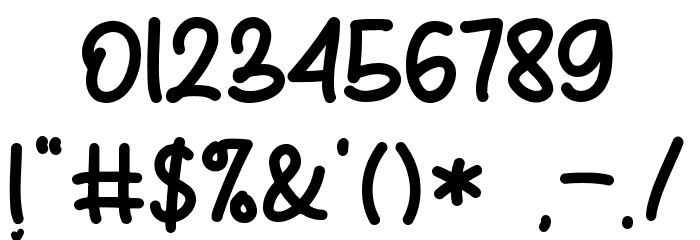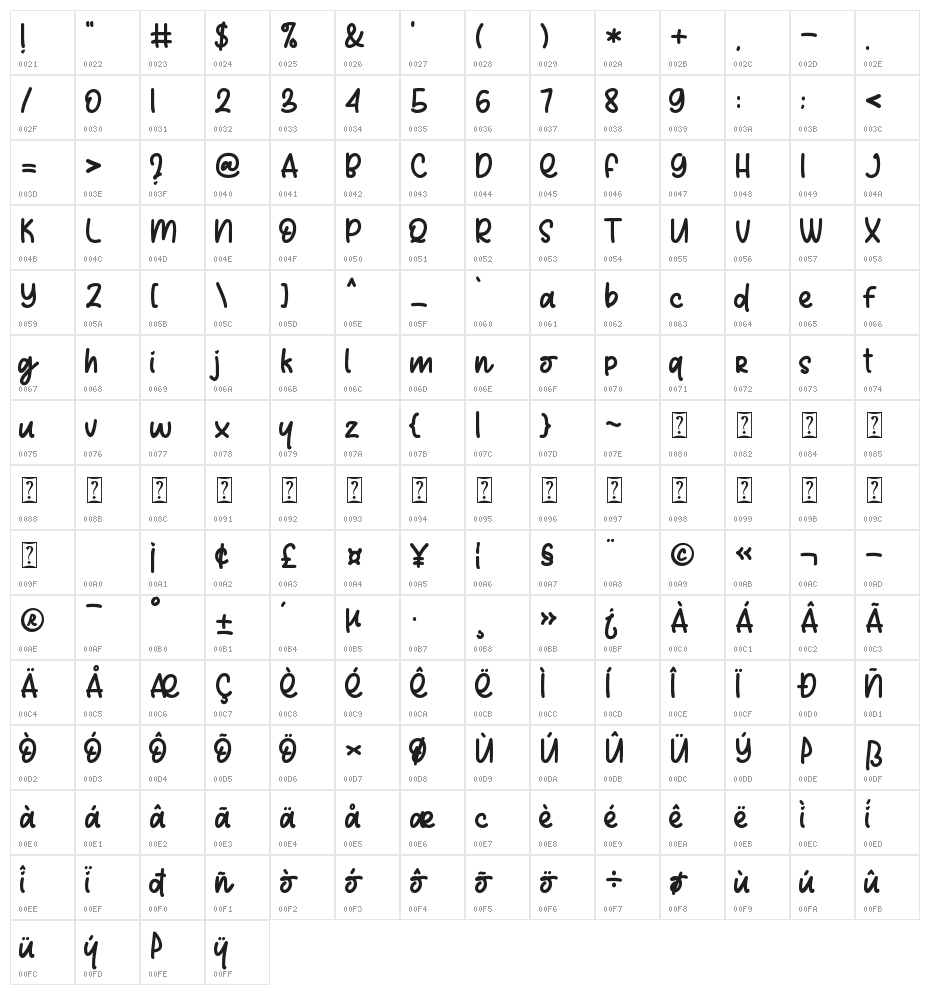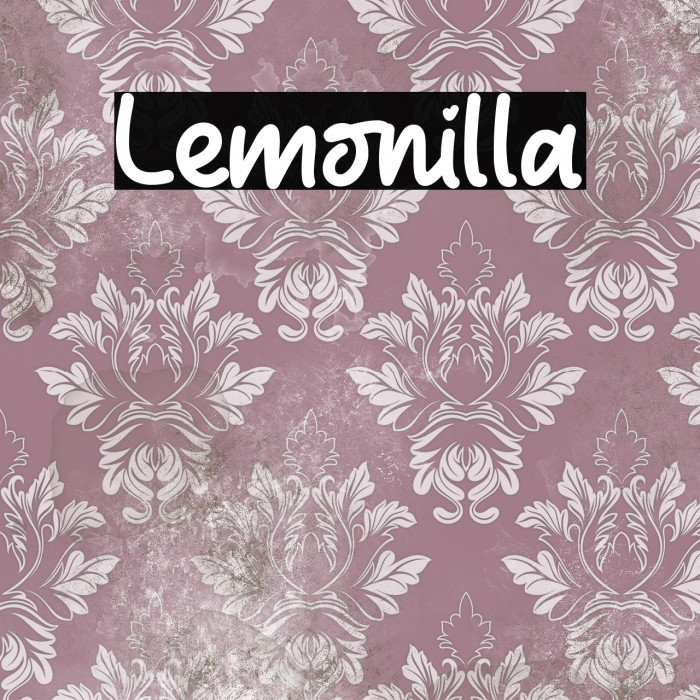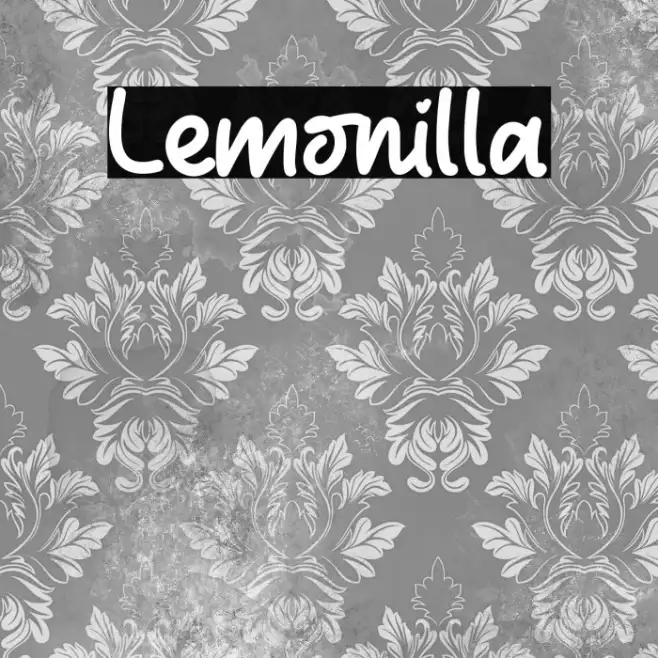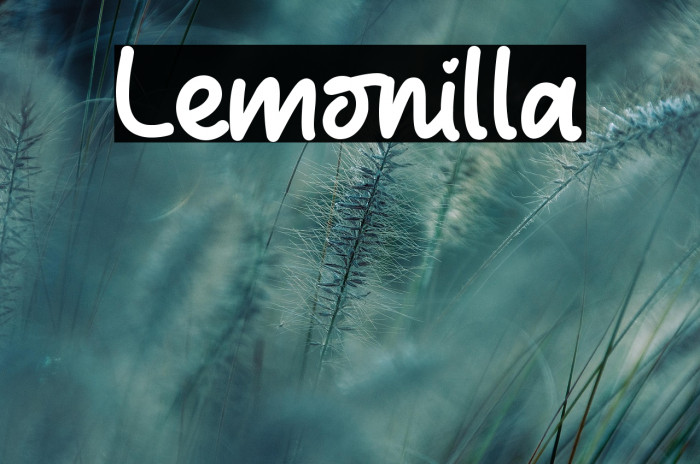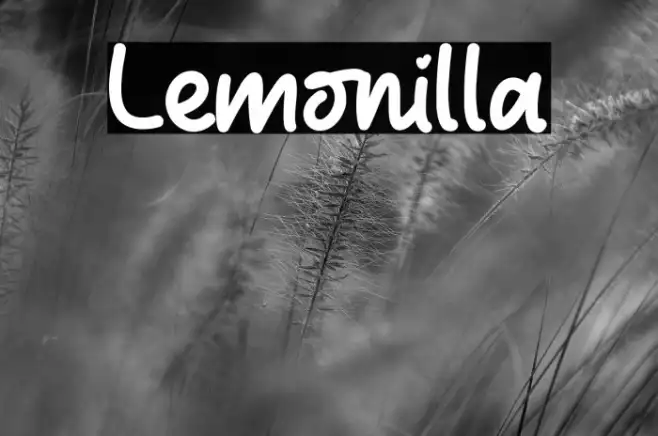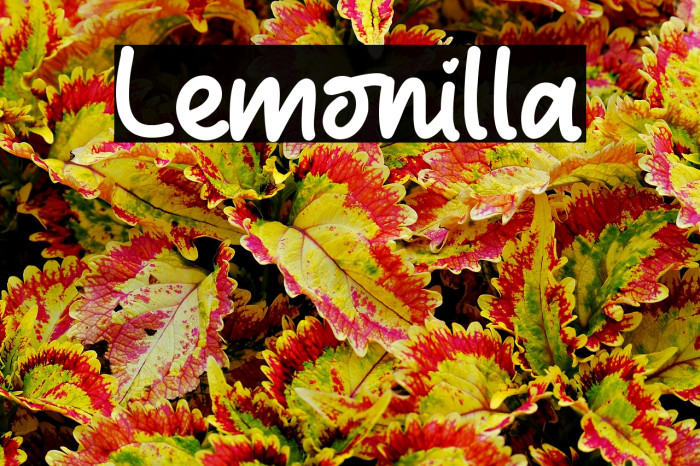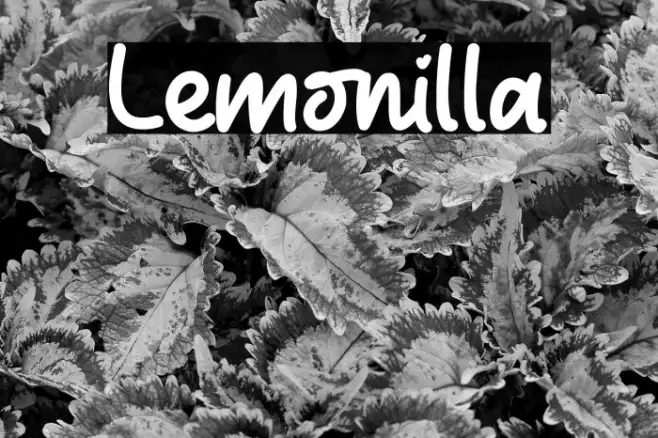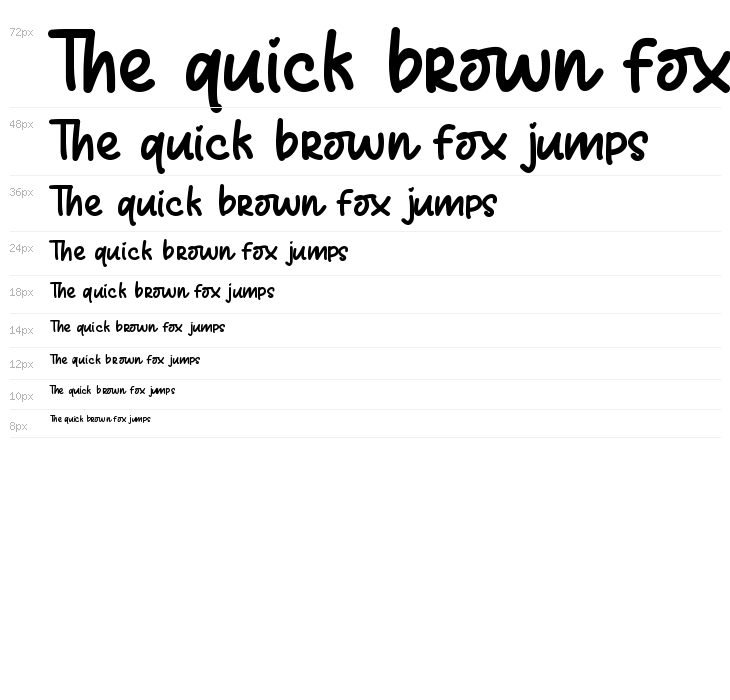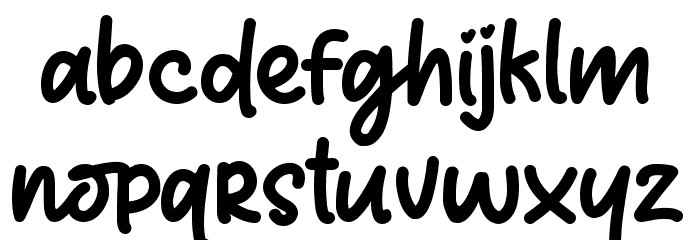
Lemonilla Font
Lemonilla Description
This playful and energetic font features a handwritten style with a bold and rounded appearance. The characters are slightly irregular, giving it a casual and friendly vibe. The uppercase and lowercase letters maintain a consistent flow, while the numbers and special characters are designed to complement the overall style. The strokes are thick and uniform, contributing to its bold presence. This font is ideal for projects that require a personal touch or a fun, informal aesthetic.
| Proposed Projects | Great for greeting cards, children's books, playful branding, and social media graphics. |